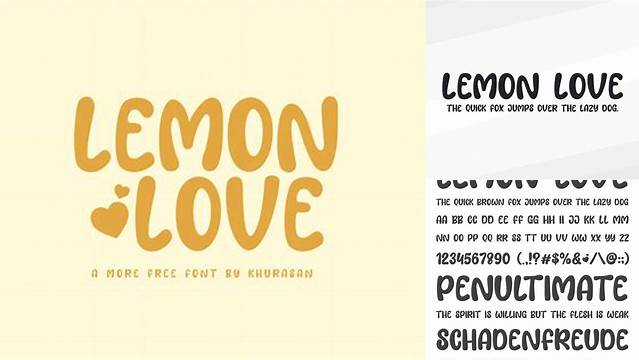
Hey everyone! Ever stumbled upon a font that just screams fun and personality? Well, let me introduce you to Lemon Love Regular, a typeface that's been making waves in the design world. If you're looking for a font that's both playful and legible, this might just be your new go-to. And the best part? You can find a Lemon Love Regular font free download! This guide will walk you through everything you need to know about this awesome font, from where to snag it to how to use it in your projects. Ready to dive in? Let's go!
What Makes Lemon Love Regular So Special?
Lemon Love Regular isn't just any font; it's a statement. It's the kind of typeface that adds a touch of whimsy and charm to any design. The creators behind Lemon Love Regular clearly put a lot of thought into its design, making it incredibly versatile. You can use it in a variety of projects, from creating eye-catching headlines to crafting unique logos. The font's friendly and approachable vibe makes it perfect for projects aimed at a younger audience or those that want to evoke a sense of joy and positivity. Its legibility is another huge plus. Despite its playful style, Lemon Love Regular remains easy to read, even in smaller sizes. This is crucial for any font, as you don't want your message to get lost in overly stylized lettering. The font's design is characterized by its rounded, slightly bubbly letterforms, giving it a fresh and energetic feel. Think of it as a visual burst of sunshine – exactly what you need to brighten up your designs. The font's inherent flexibility is another reason it’s so special. You can pair it with more serious or formal fonts to create interesting contrasts, or use it solo for a consistent, playful look. This adaptability allows you to get creative with how you use it, ensuring it fits perfectly with your specific project's style. Also, it's worth highlighting the impact a good font has on your brand. It acts as a crucial element of your brand's visual identity. Choosing a font like Lemon Love Regular, with its distinct personality, can greatly enhance your brand's memorability and make it stand out from the crowd. Think about it: a well-chosen font can instantly convey your brand's tone and values. Whether you're aiming for fun, professionalism, or anything in between, your font choice is key. Beyond the aesthetics, the psychological impact of fonts shouldn't be ignored. Certain fonts evoke specific feelings. Lemon Love Regular's rounded edges and cheerful aesthetic tend to create feelings of warmth, friendliness, and approachability. This makes it highly suitable for projects aimed at building trust and connection with the audience.
When exploring this font, consider how its unique features—such as letter spacing and overall design—contribute to your designs' overall aesthetics. The font often includes varied weights and styles, providing you with even more creative control. Furthermore, the availability of a Lemon Love Regular font free download makes this typeface accessible for designers of all levels, whether you’re just starting out or a seasoned pro. It democratizes design, allowing everyone to experiment and integrate this fantastic font into their work.
Using Lemon Love Regular in Your Designs
Now that you've got the Lemon Love Regular font free download, it’s time to put it to work! The beauty of this font is its versatility. It’s perfect for a wide variety of design projects. Think about using it for headings, logos, invitations, posters, and even website elements. You can use it in both digital and print formats, which offers a vast amount of creative possibilities.
When it comes to headings, Lemon Love Regular truly shines. Its playful yet readable style grabs attention and sets a friendly tone. Whether you're creating a blog post, a social media graphic, or a poster, this font will make your headlines pop. Try using it in combination with a more formal font for body text to create an interesting visual contrast. This can help to guide the reader’s eye, distinguishing between important information and supporting content. Logos are another area where Lemon Love Regular can make a big impact. Its unique character creates a memorable brand identity. Imagine a logo with a friendly and approachable vibe that reflects your brand's personality. This font can help you achieve just that! Consider combining it with simple, bold shapes and colors to enhance the logo’s overall impact. Invitations are perfect for this font. Whether you're designing invitations for a birthday party, a baby shower, or a wedding, Lemon Love Regular adds a touch of charm and elegance. Personalize your invitation with various colors and design elements to make it truly unique. This font will instantly convey a sense of celebration and joy. For posters, flyers, and promotional materials, consider the font’s readability. Ensure that the font is legible from a distance, so that your message is clearly communicated to the target audience. Lemon Love Regular provides great legibility while also offering a fun, eye-catching appeal. It's also a great choice for web design and user interfaces. Using it for buttons, navigation menus, or page titles can create a friendly and intuitive user experience. Just make sure to keep the font size and spacing appropriate for readability on different devices and screen sizes. Always remember to choose the right format. When working with fonts, it’s important to choose the correct file format. Usually, fonts come in formats such as .TTF (TrueType Font) or .OTF (OpenType Font). These formats are widely compatible with various design software, including Adobe products, Microsoft Office, and online design tools. Ensure your chosen design tool supports the font format before starting your project. Practice different styles, such as italicizing or bolding specific words or phrases. Feel free to experiment with the colors and sizes, allowing you to create unique and engaging designs. This will give your designs a distinct look while maintaining the essence of the Lemon Love Regular font.
Conclusion: Unleash Your Creativity with Lemon Love Regular